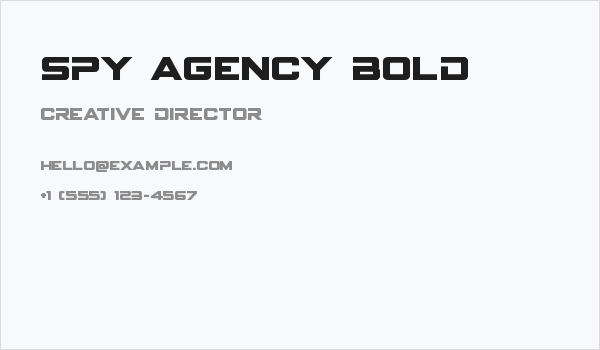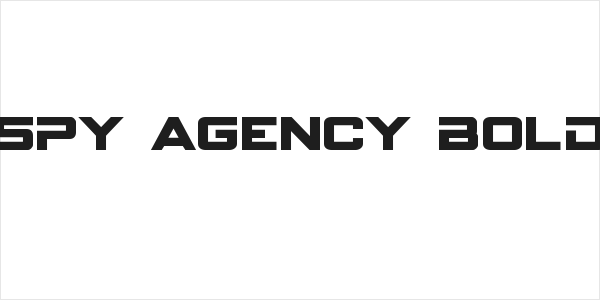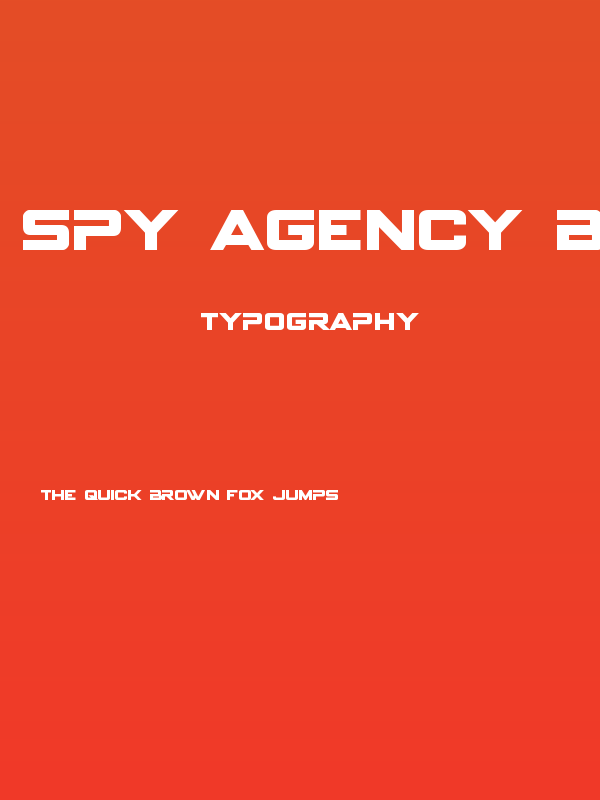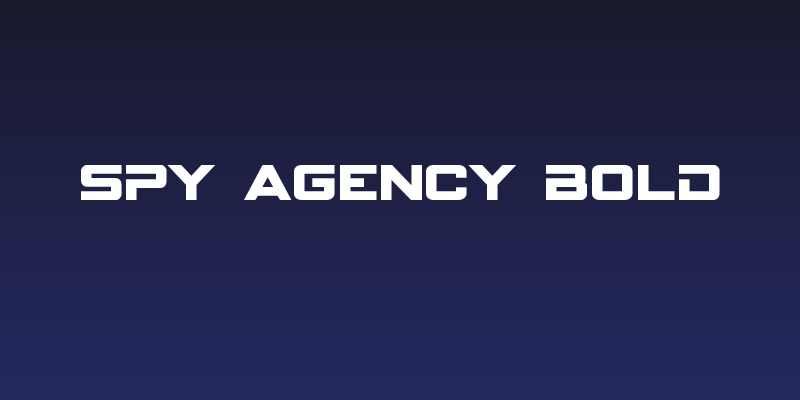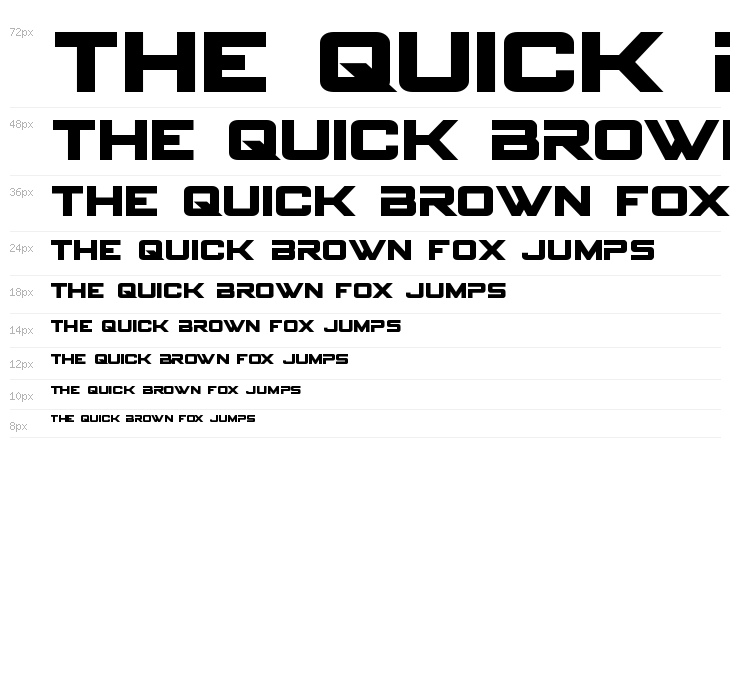
Spy Agency Bold Font
Spy Agency Bold Description
This font features a bold, geometric design with a distinctly modern and futuristic feel. The characters are constructed with thick, uniform strokes that create a strong visual impact. The angular and blocky nature of the letters gives it a tech-inspired aesthetic, making it ideal for projects that require a sense of strength and innovation. The uppercase letters are particularly striking, with sharp edges and a consistent height that enhances readability. The numerals and special characters maintain the same boldness and geometric precision, ensuring a cohesive look across all text elements. This font is well-suited for headlines, posters, and branding materials where a bold statement is needed.
| Proposed Projects | Ideal for technology branding, futuristic posters, and bold headlines. |